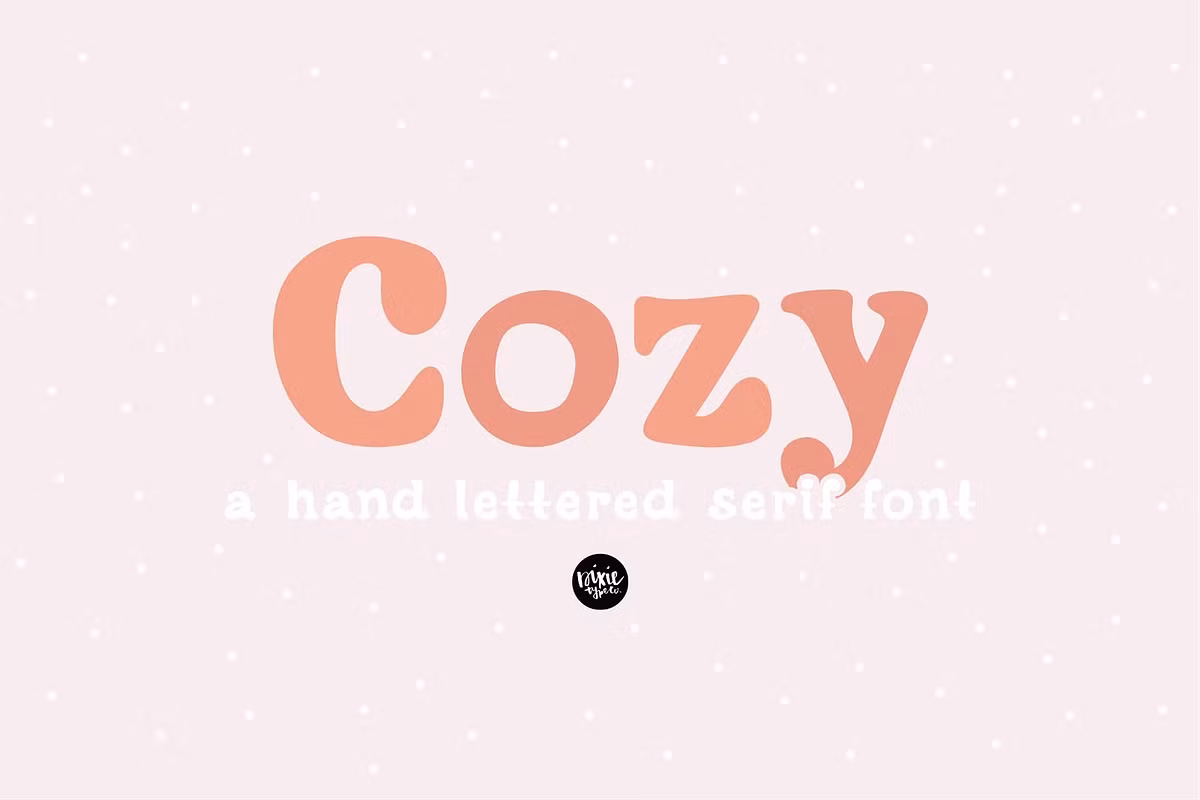
Introducing COZY, a bold and soft hand-lettered serif font designed to make a friendly statement. This font is perfect for farmhouse designs, branding, logos, and various other creative projects. It includes both uppercase and lowercase letters, numbers, and punctuation, providing versatility for your design needs
• Styles Included: Regular and Outline
• Character Set: Uppercase and lowercase letters, numbers, and punctuation
COZY is ideal for creating friendly and approachable designs, including logos, branding materials, and decorative projects. Its versatile character set ensures it can adapt to various design applications